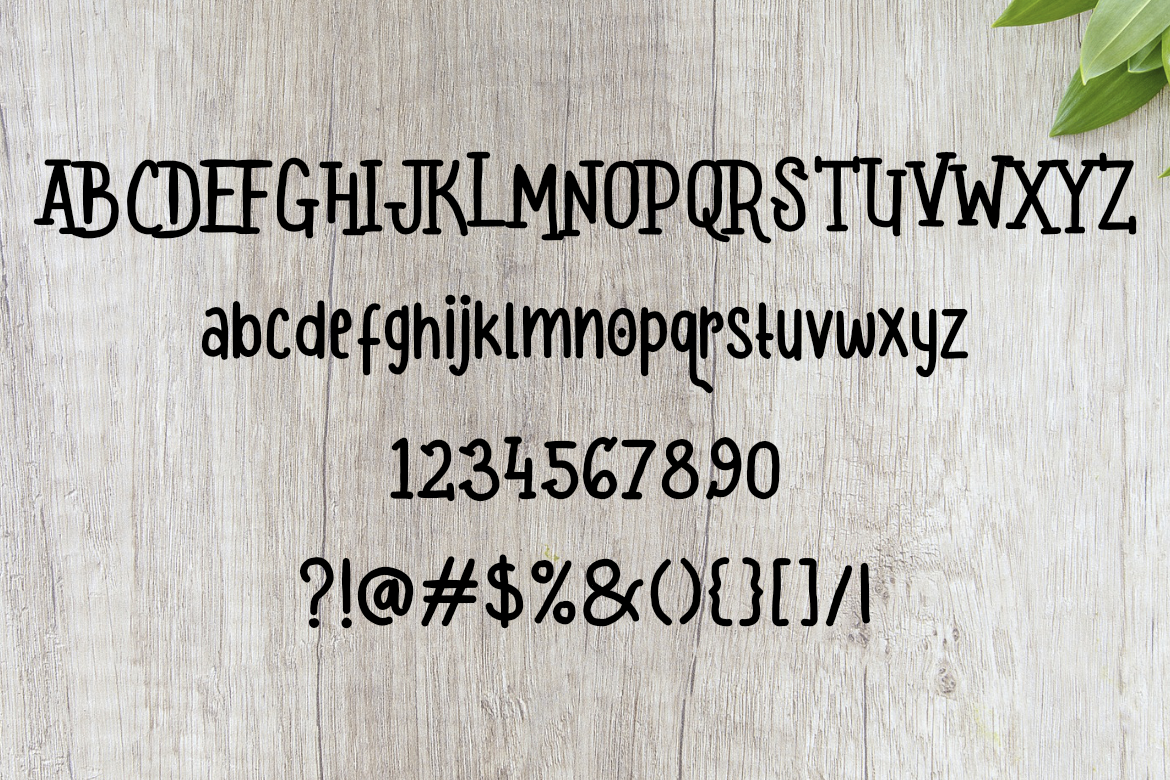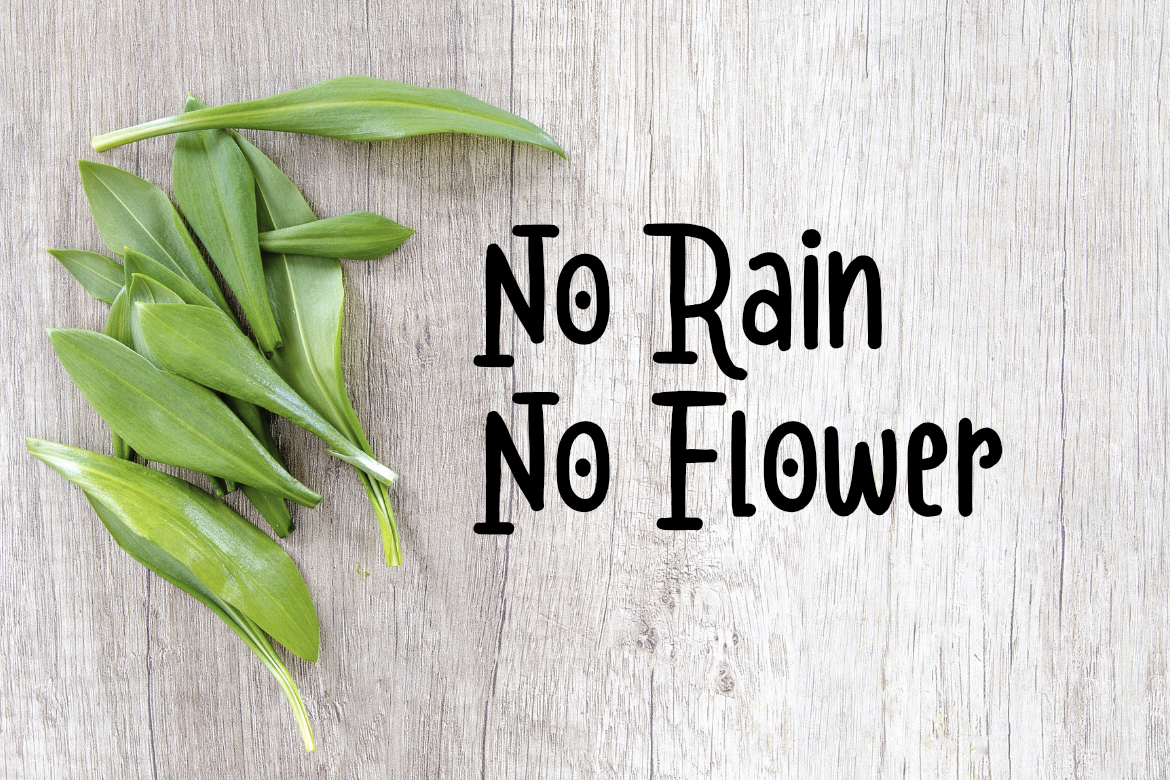
Unleash Your Creativity with Font Hunter: A Fun and Unique Slab Serif Font
Are you tired of using the same old fonts in your designs? Look no further than Font Hunter, a fun and quirky slab serif font that’s sure to add some edge to your typography. With its embellished characters and bold personality, Font Hunter is perfect for designers and crafters looking to create unique and eye-catching designs.
What is Font Hunter?
Font Hunter is a slab serif font, characterized by its thick, block-like serifs and bold lines. But what sets it apart from other slab serif fonts is its fun and playful personality. With a range of embellished characters, Font Hunter adds a touch of whimsy and personality to any design.
Key Features of Font Hunter
- Embellished characters: Font Hunter features a range of embellished characters, including letters, numbers, and punctuation marks. These characters add a touch of personality and flair to any design.
- Slab serif design: The font’s slab serif design gives it a bold and chunky feel, perfect for creating eye-catching headlines and titles.
- Fun and unique look: With its combination of bold lines and embellished characters, Font Hunter has a fun and unique look that’s sure to stand out.
- Versatile: Font Hunter is perfect for a wide range of design applications, from posters and flyers to social media graphics and craft projects.
Uses for Font Hunter
Font Hunter is a versatile font that can be used for a wide range of design applications. Here are just a few ideas to get you started:
- Posters and flyers: Use Font Hunter to create eye-catching posters and flyers that grab attention and stand out.
- Social media graphics: Add some personality to your social media graphics with Font Hunter’s fun and unique characters.
- Craft projects: Font Hunter is perfect for craft projects, such as making cards, gift tags, and other DIY crafts.
- Branding and packaging: Use Font Hunter to create bold and eye-catching branding and packaging designs that stand out on store shelves.
Tips for Using Font Hunter
Here are a few tips for getting the most out of Font Hunter:
- Experiment with different colors: Font Hunter looks great in bold, bright colors. Experiment with different color combinations to find the one that works best for your design.
- Mix and match characters: Font Hunter’s embellished characters are designed to be mixed and matched. Try combining different characters to create a unique look.
- Use it sparingly: While Font Hunter is a bold and eye-catching font, it can be overwhelming if used too much. Use it sparingly to create emphasis and add personality to your design.
Font Hunter is a fun and unique slab serif font that’s perfect for designers and crafters looking to add some edge to their typography. With its embellished characters and bold personality, Font Hunter is sure to stand out in any design. Whether you’re creating posters, social media graphics, or craft projects, Font Hunter is a versatile font that’s sure to inspire your creativity.